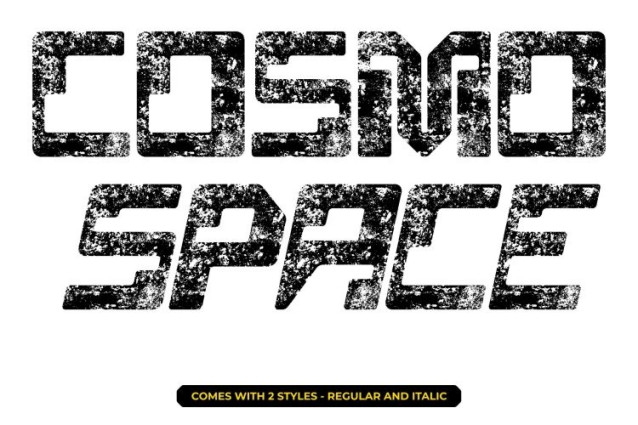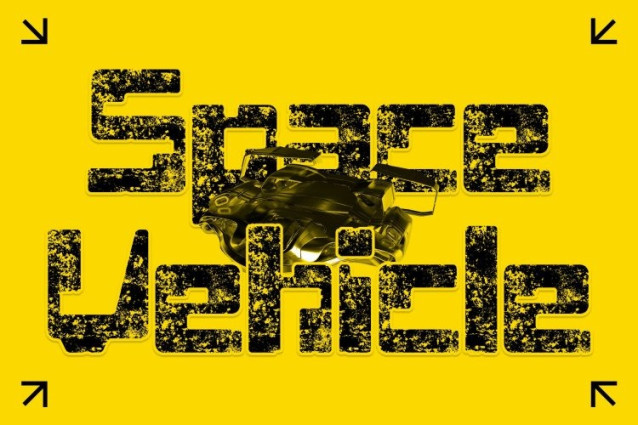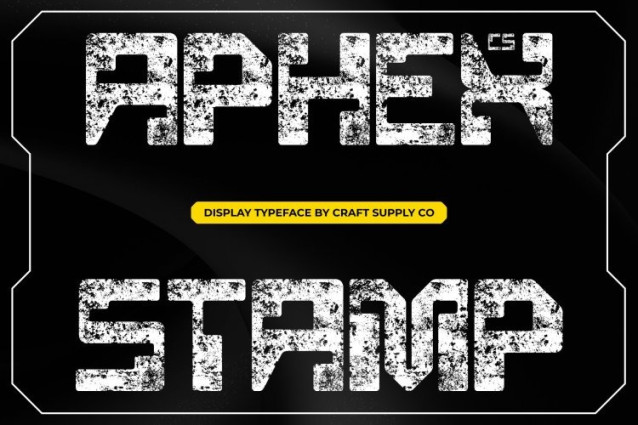
CS Aphex Stamp Font
CS Aphex Stamp Font This is a modern tech display font built on sleek geometric forms and sharp, precise lines. Its futuristic structure communicates innovation, progress, and digital sophistication, making it a strong choice for designs that demand a forward-thinking and cutting-edge appearance.
High-Tech Aesthetic with Vintage Stamp Texture
While its foundation is clean and modern, the stamp effect introduces a textured, slightly worn surface that adds vintage character and artistic depth. This aged texture creates a unique contrast combining advanced technological forms with an old-design feel that adds warmth, personality, and visual intrigue.
Modern Precision for Digital and Branding Use
This font maintains excellent clarity and readability through its well-defined shapes and balanced proportions. The geometric precision makes it ideal for tech branding, digital interfaces, promotional visuals, and futuristic layouts, while the stamped texture enhances visual richness without sacrificing legibility.
Elevate Designs with a Fusion of Past and Future
Perfect for projects that aim to blend innovation with character, this font delivers a distinctive typographic voice. Its fusion of futuristic design and vintage stamp texture makes it ideal for branding, posters, and digital concepts that want to feel modern, expressive, and memorably unique.